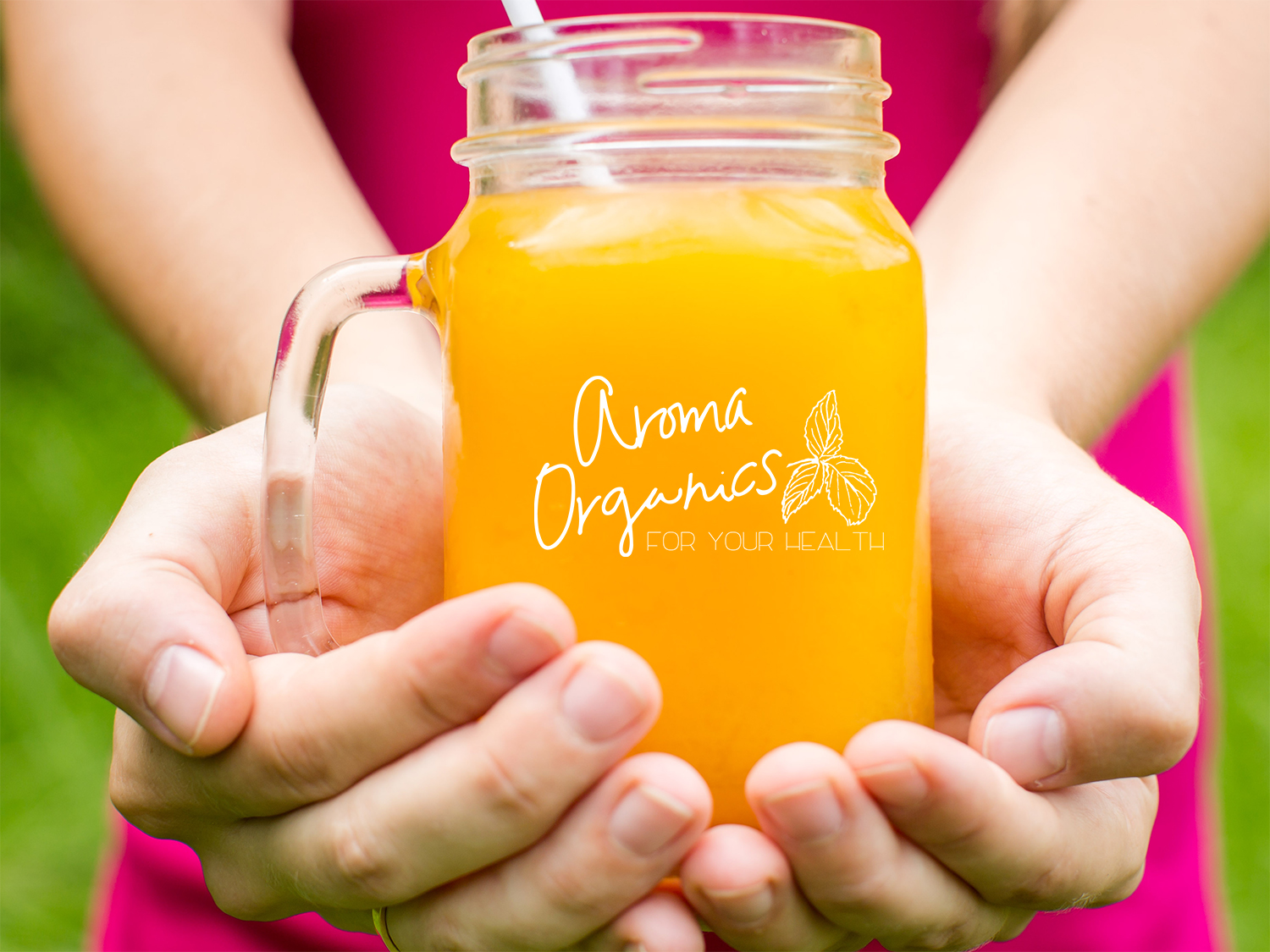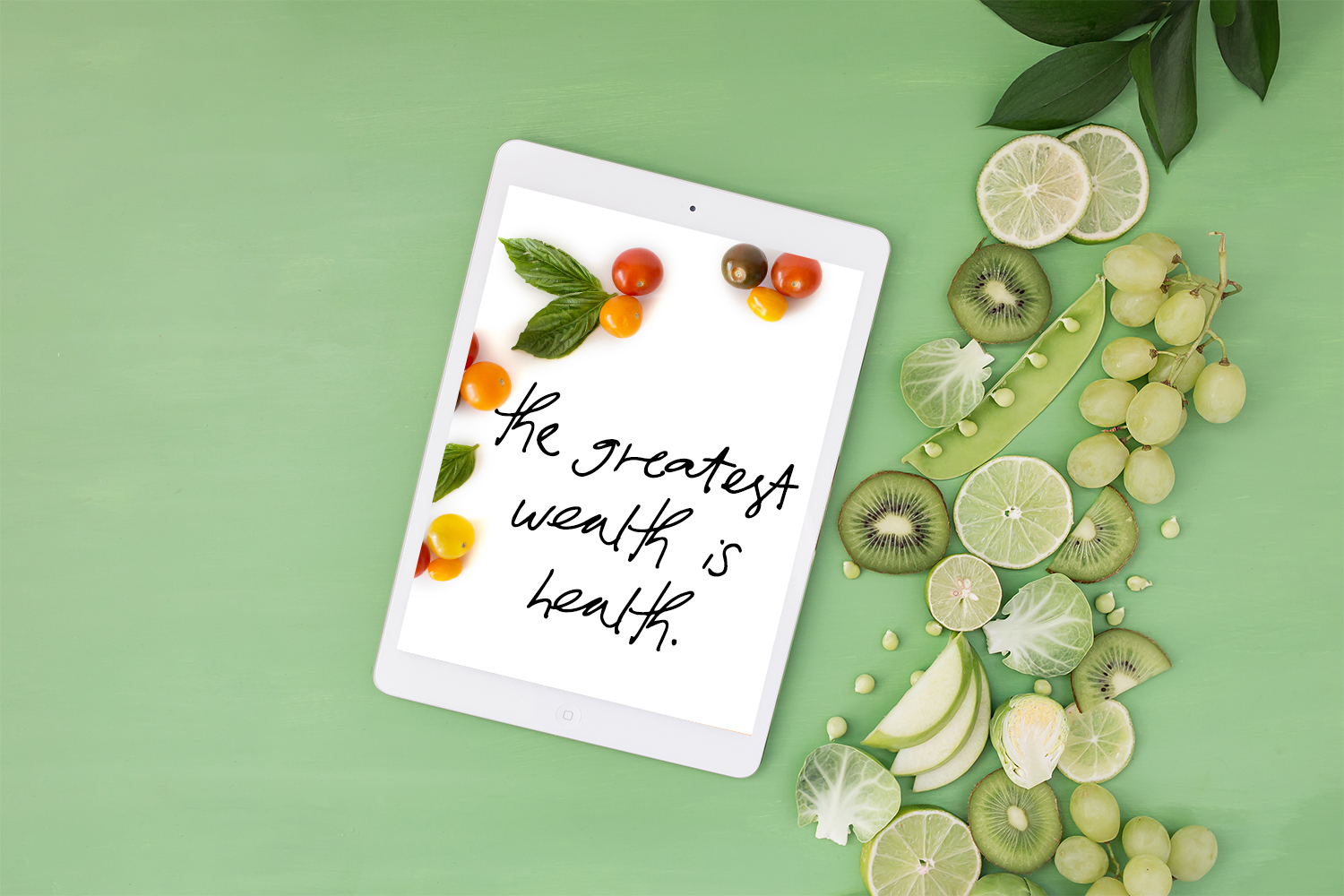
Florida Girl Script Font
db-ku.com - Script & Handwritten -- Florida Girl Script is a handwritten font — casual & quick. Packed full of ligatures for common letter combinations, it enables the user to have a scrawled look with natural breaks in letters & words, mimicking the look of handwriting & lifting a pen while writing. Paired with the more structured, clean Florida Girl Sans, this duo packs a punch for modern branding with an edge, posters, & website design.